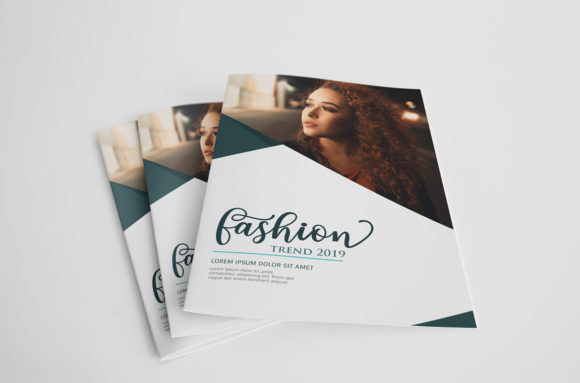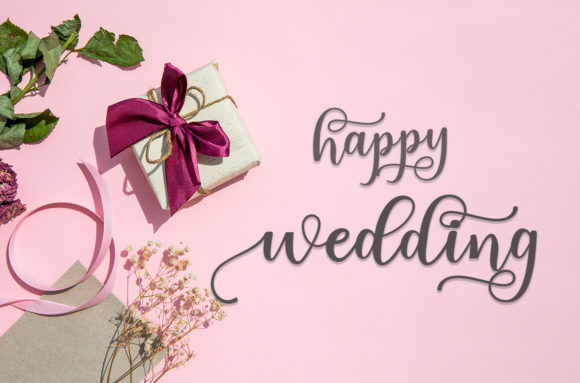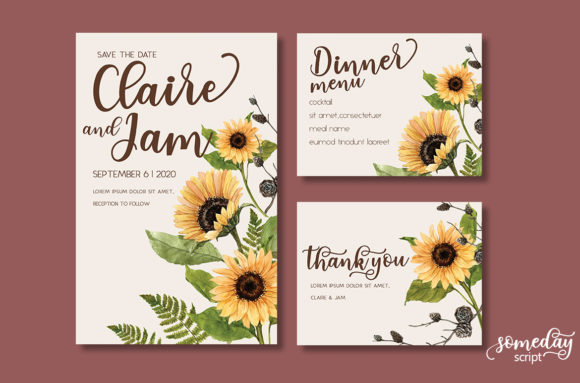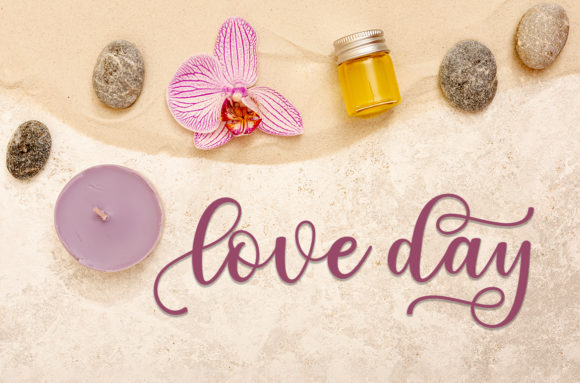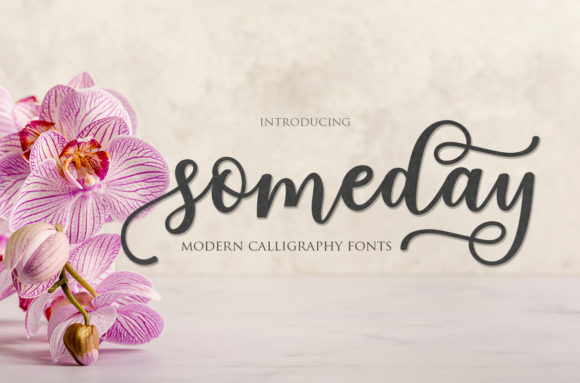
Someday Script Font
About Someday Script Font
Someday is a playful and romantic script with incredibly authentic swashes. Get inspired by its modern elegance!